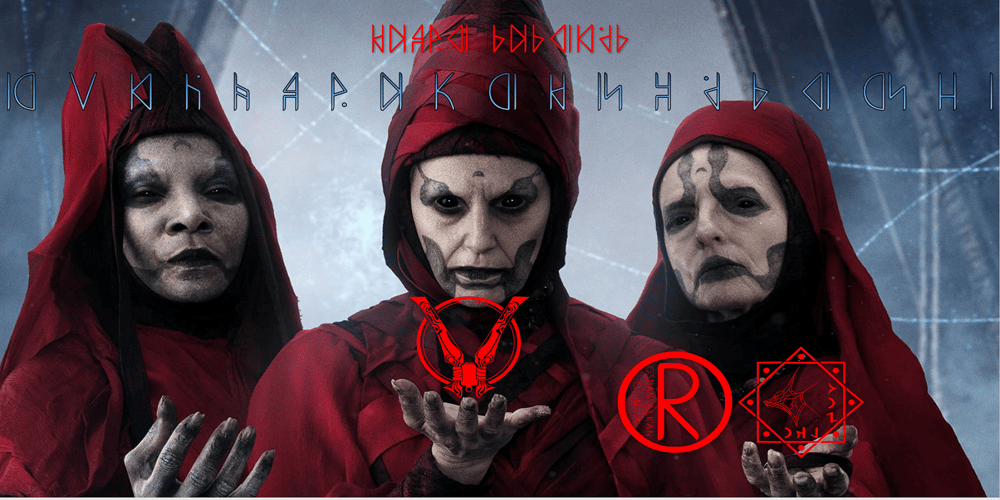
Ongunkan Star Wars Nightsisters Font Family was designed by Osman Nuri ALKAN and published by Runic World Tamgacı. Ongunkan Star Wars Nightsisters contains 1 styles and family package options. A writing system was used in a stronghold constructed by the Nightsisters on the world Arcana. The runic alphabet appears in the end credits of Ahsoka, where it is used to list the names of locations along the Pathway to Peridea.